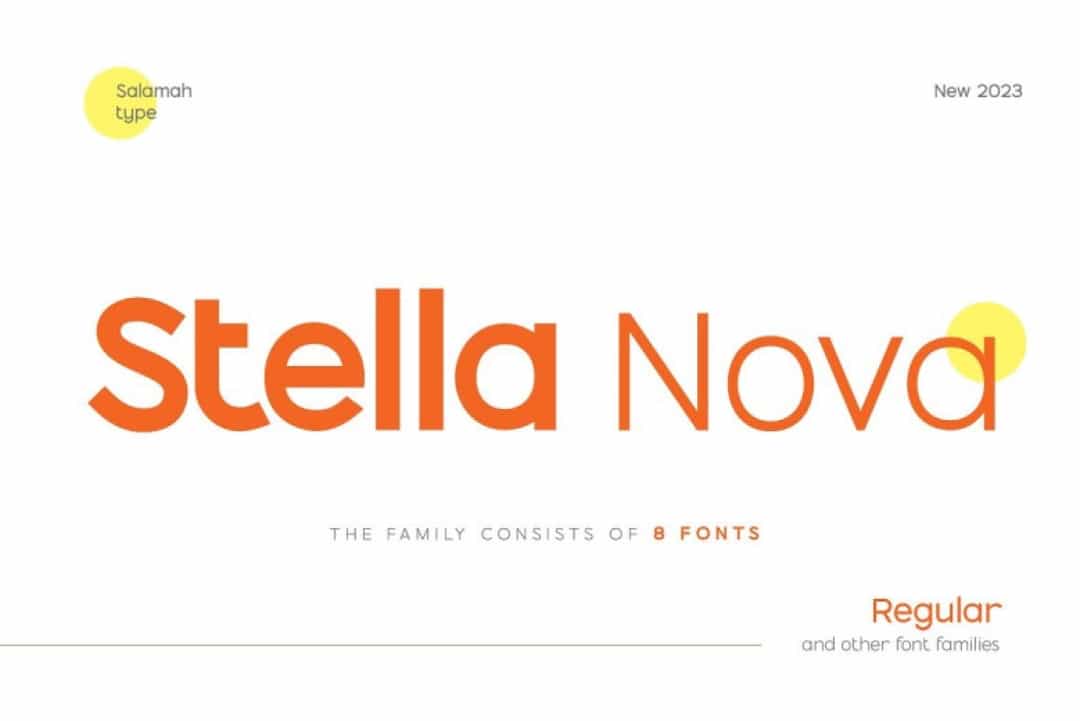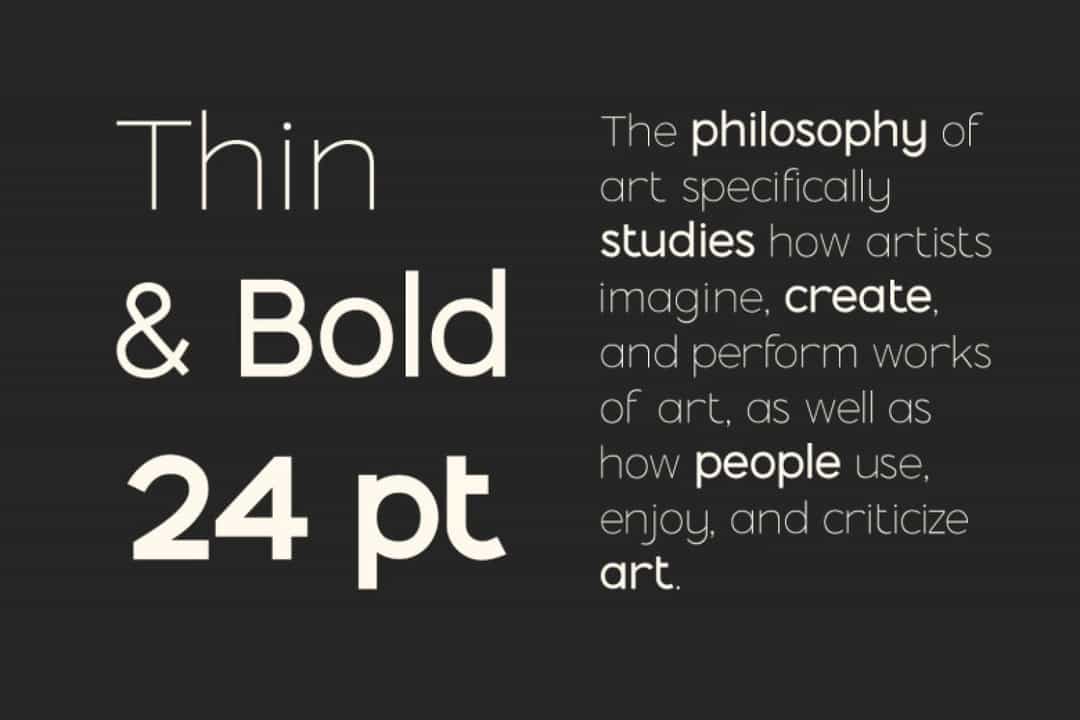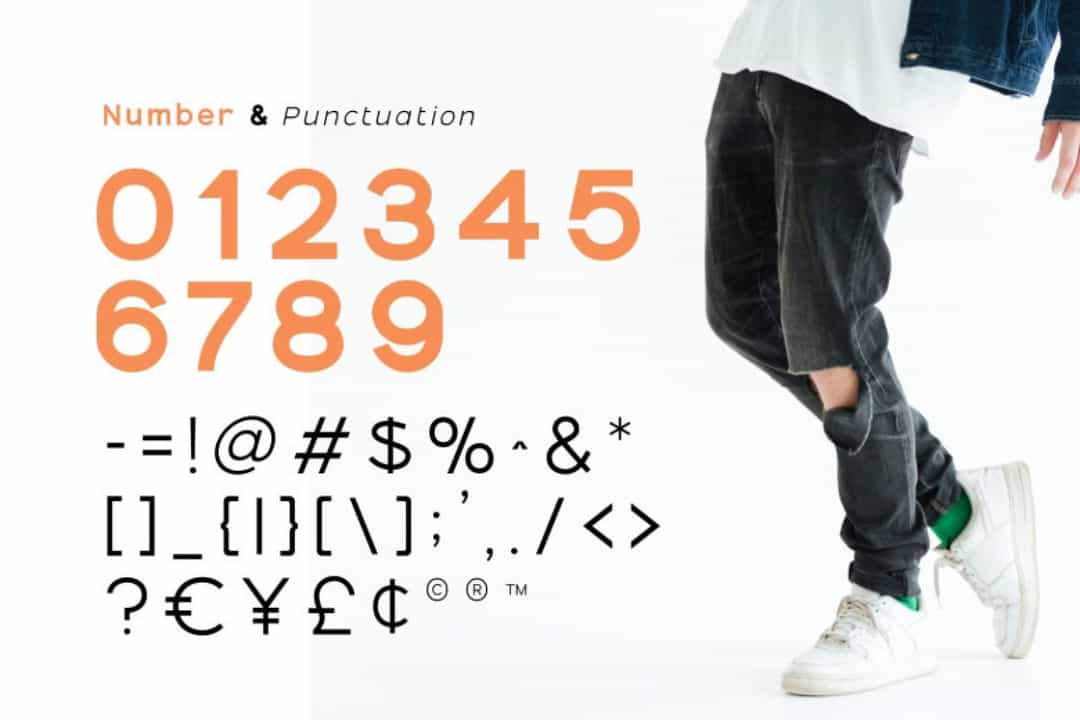
Stella Nova is an essential and stylish sans serif font family consisting of eight fonts that is ideal for magazines, posters, logos, branding materials and websites.